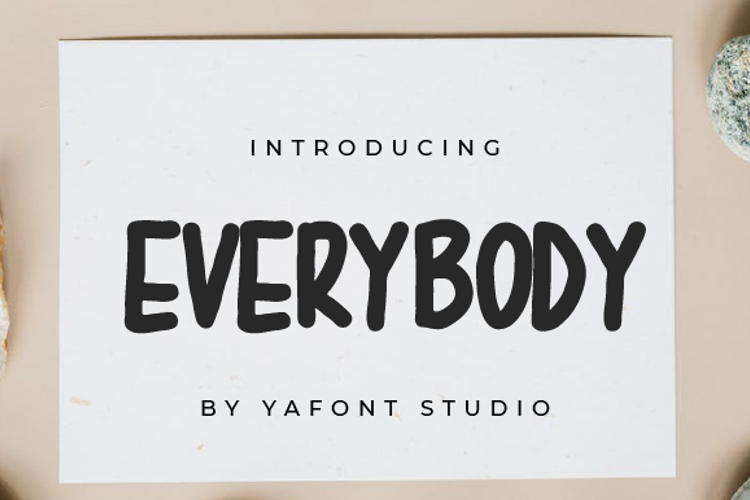
everybody Font
About everybody Font
Everybody is a neat and simple display font. Add it to your most creative ideas and notice how it makes them come alive!